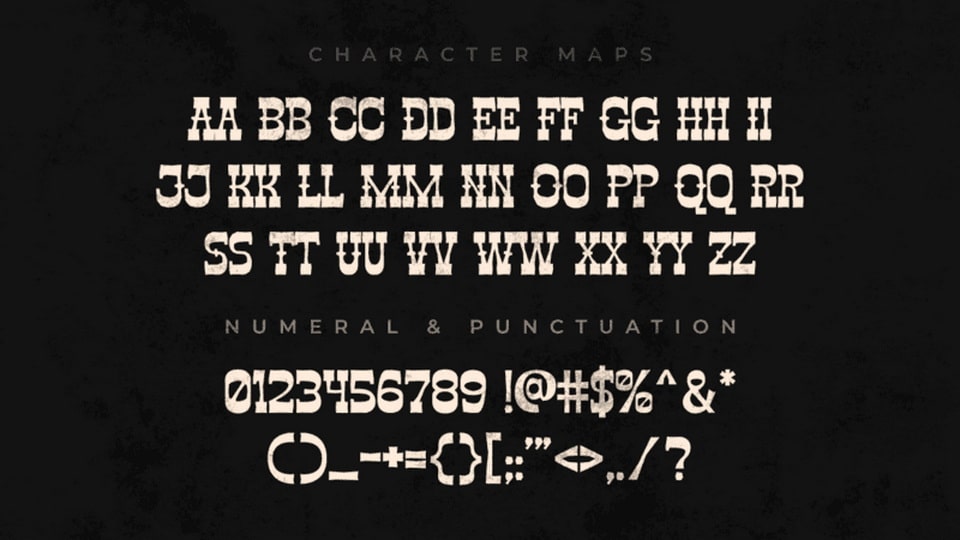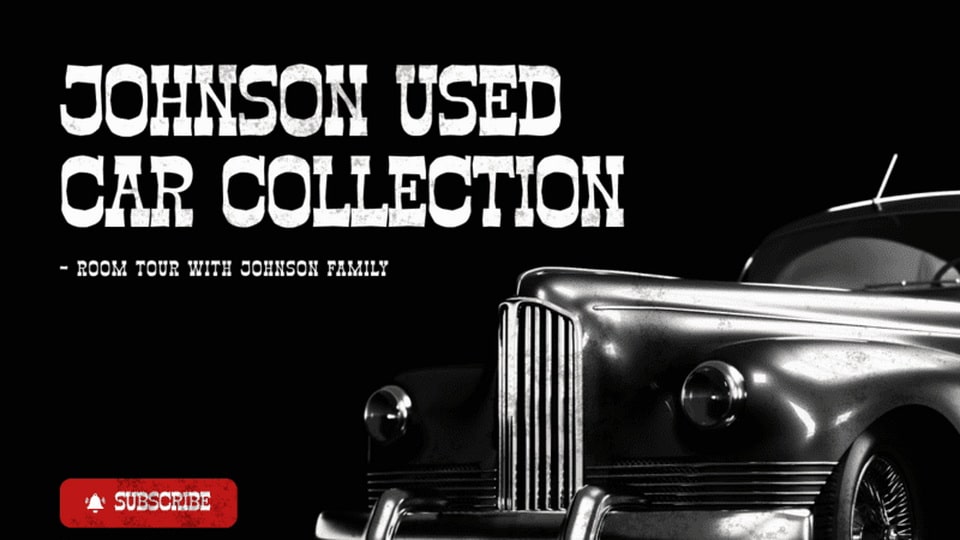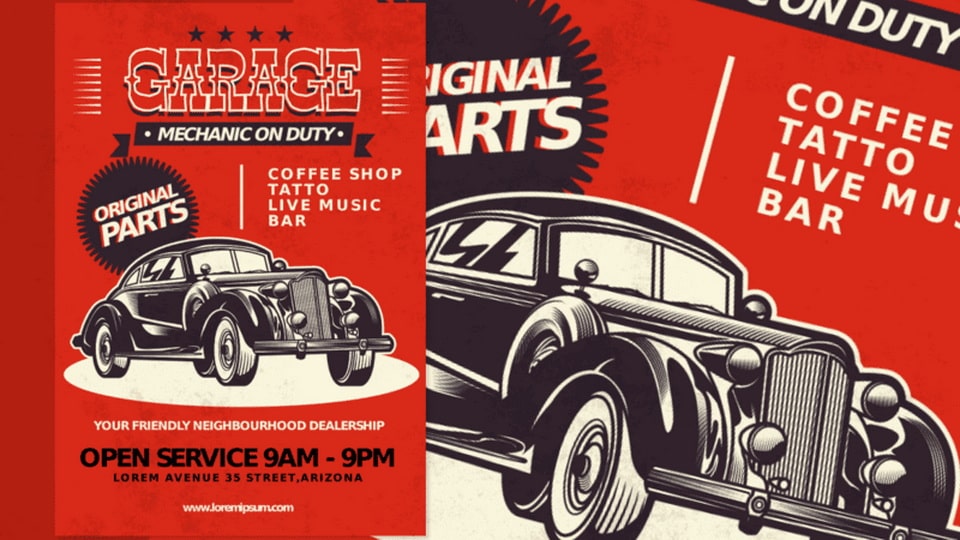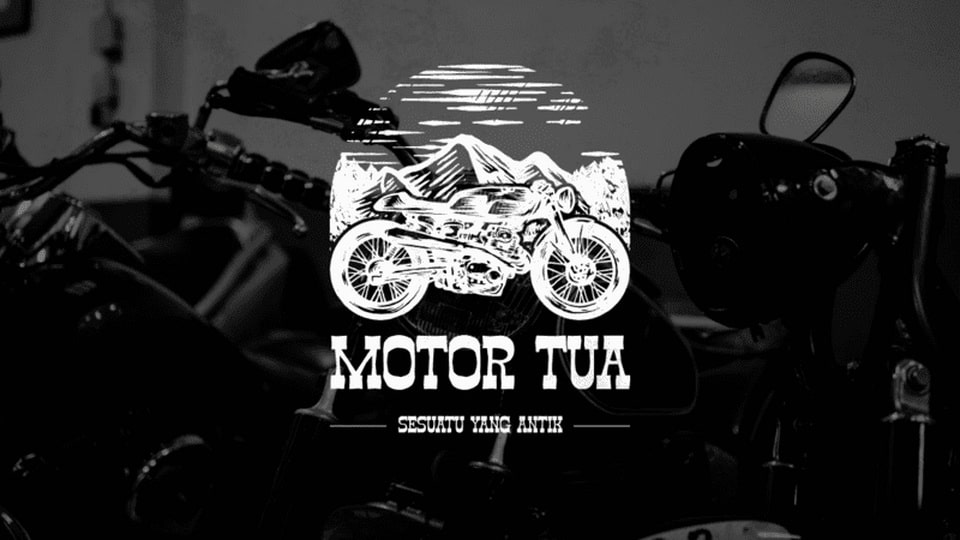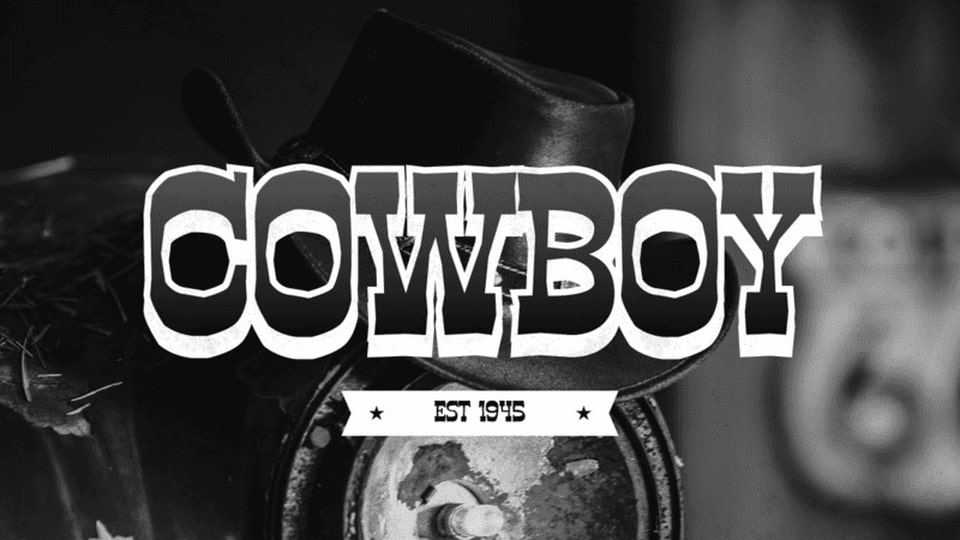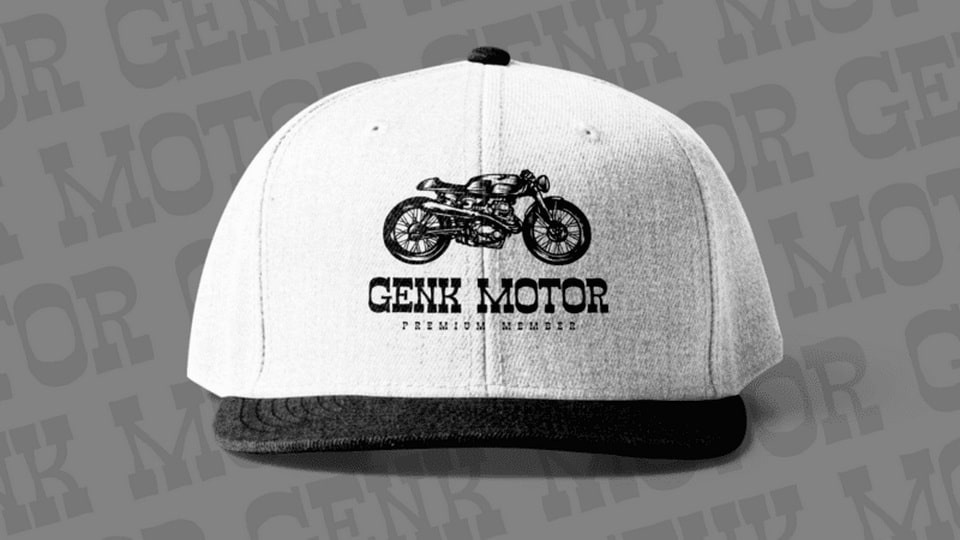
The Django Font
The Django – Vintage Font
Classic look, monochrome, and looking bold. The Django is the perfect match for your western vibe projects.
Suit perfectly for retro segmented magazines, posters, movie titles, music posters, youtube covers, youtube thumbnails, social media page covers, and so on…